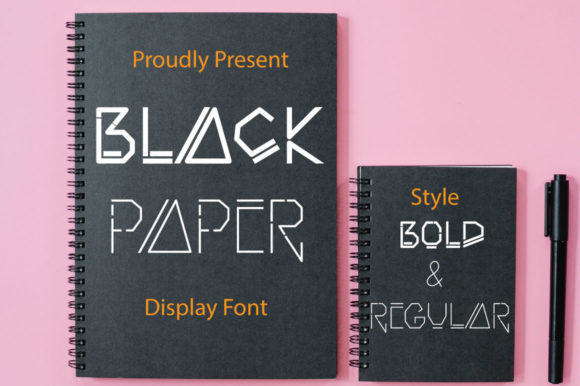
The Ultimate Guide to Black Paper Font: Elevate Your Designs with a Cool and Robotic Style
I’ll never forget the time I was working on a project for a futuristic-themed t-shirt design. My client wanted a font that would scream “robotic chic,” but I was struggling to find the perfect one. That’s when I stumbled upon Black Paper Font. It was love at first sight! 🚀 In this article, I’ll share my experience with this amazing display font, its features, and how to make the most of it in your designs.
An Honest Review of Black Paper Font
What I Love About Black Paper Font
- ✨ Unique and eye-catching design: Black Paper Font is a game-changer for any design project that needs a robotic or futuristic touch.
- ✅ Highly versatile: This font can be used for a wide range of applications, from t-shirts and logos to magazine titles and product packaging.
- 💻 Easy to read: Despite its futuristic look, Black Paper Font is surprisingly legible, even at smaller sizes.
While Black Paper Font is an amazing addition to any design project, there are a few things to keep in mind:
- 🤔 Limited use cases for body text: Due to its bold and futuristic design, Black Paper Font might not be the best choice for longer blocks of text.
- ⚠️ Be mindful of font size: To maintain legibility, make sure to use Black Paper Font at a suitable size for your design.
The Backstory of Black Paper Font
Black Paper Font was designed with the goal of creating a unique, robotic font that would add a touch of futurism to any design project. Inspired by classic sci-fi movies and video games, this font is perfect for designers who want to create a bold, eye-catching look.
| Font Name | Black Paper Font |
| Author | Bahrul Studio |
Q: What type of designs is Black Paper Font best suited for?
A: Black Paper Font is perfect for designs that need a robotic or futuristic touch, such as t-shirts, logos, magazine titles, and product packaging.
Q: Is Black Paper Font easy to read?
A: Yes, despite its bold and futuristic design, Black Paper Font is surprisingly legible, even at smaller sizes.